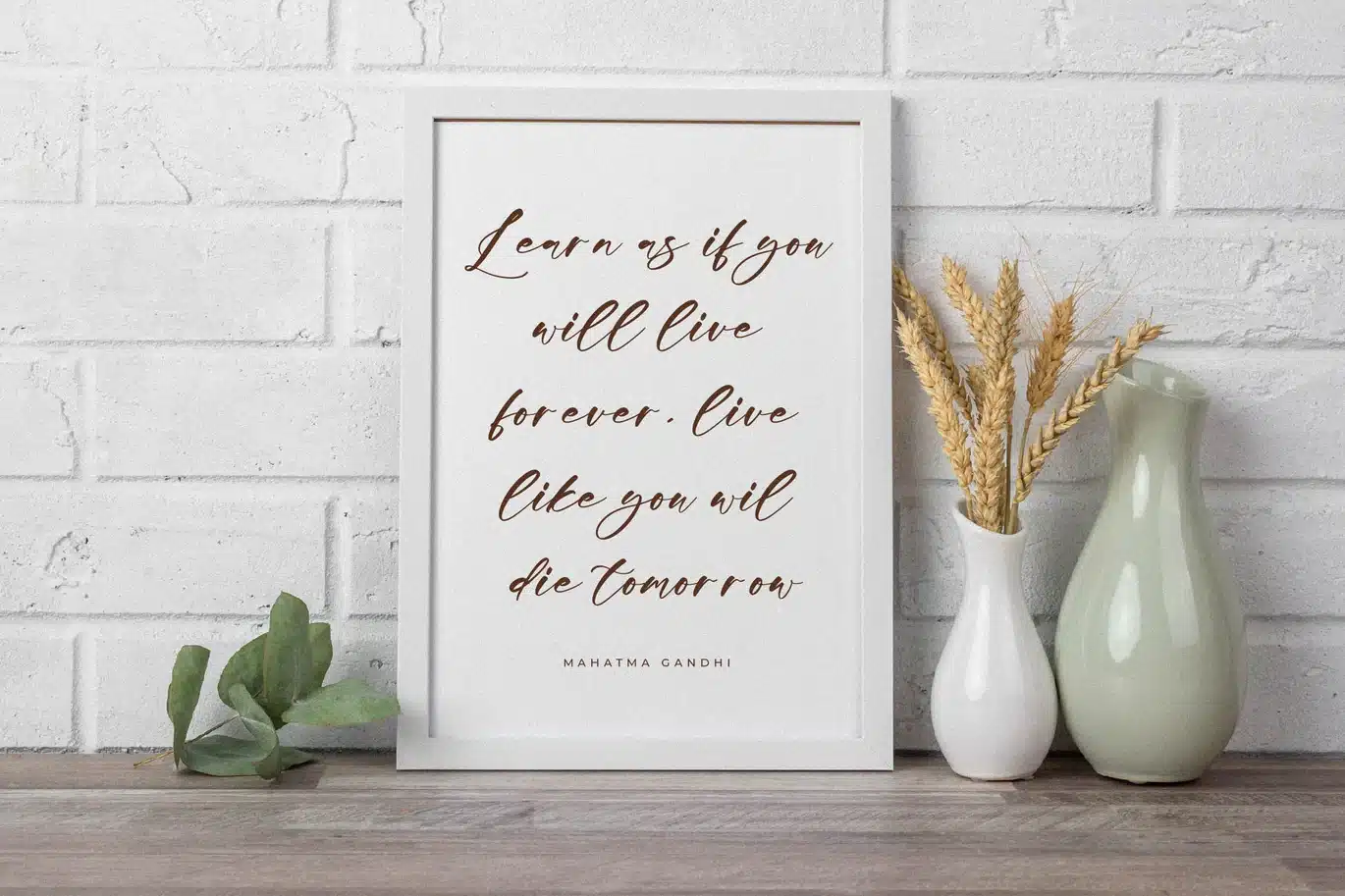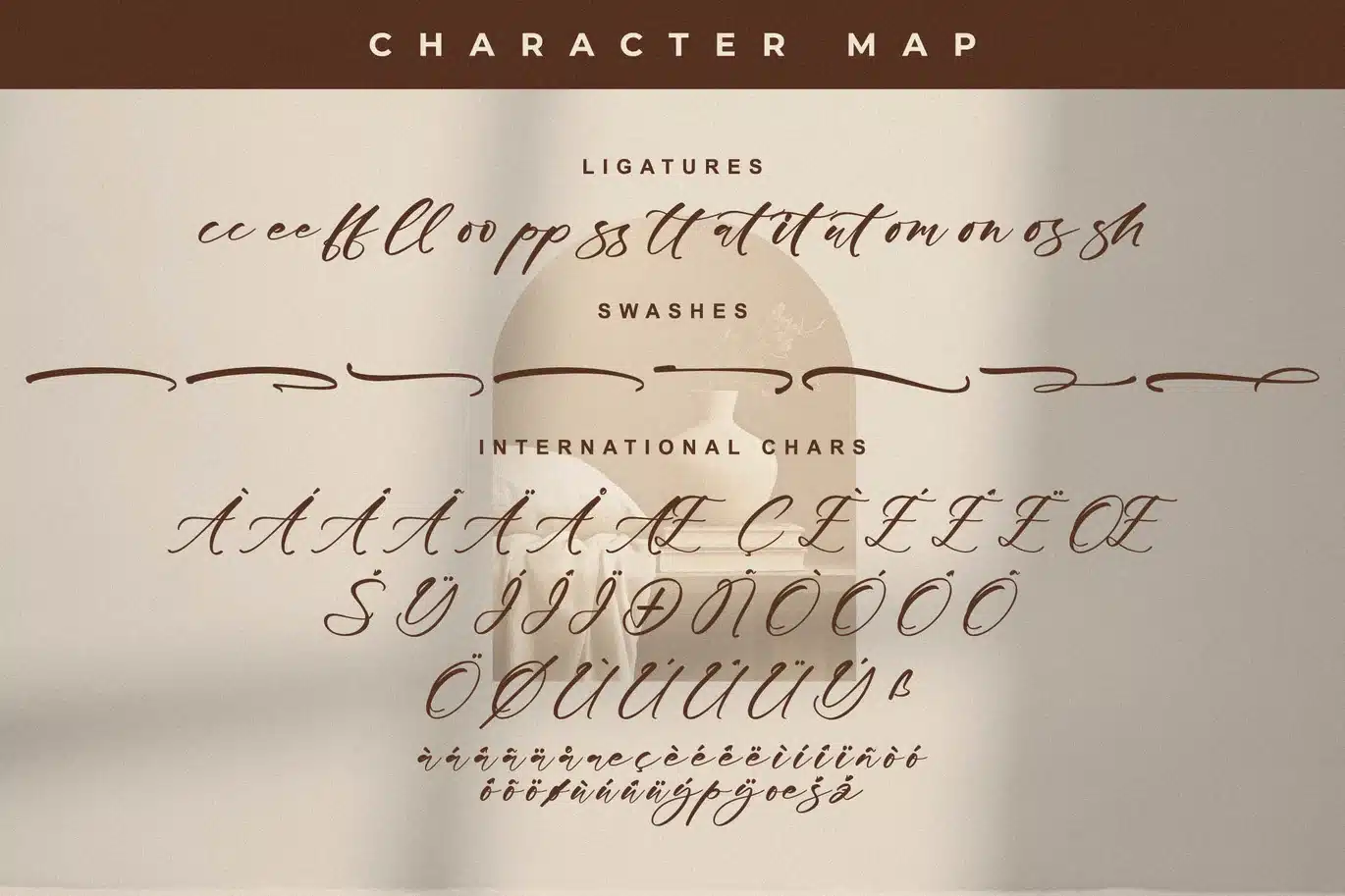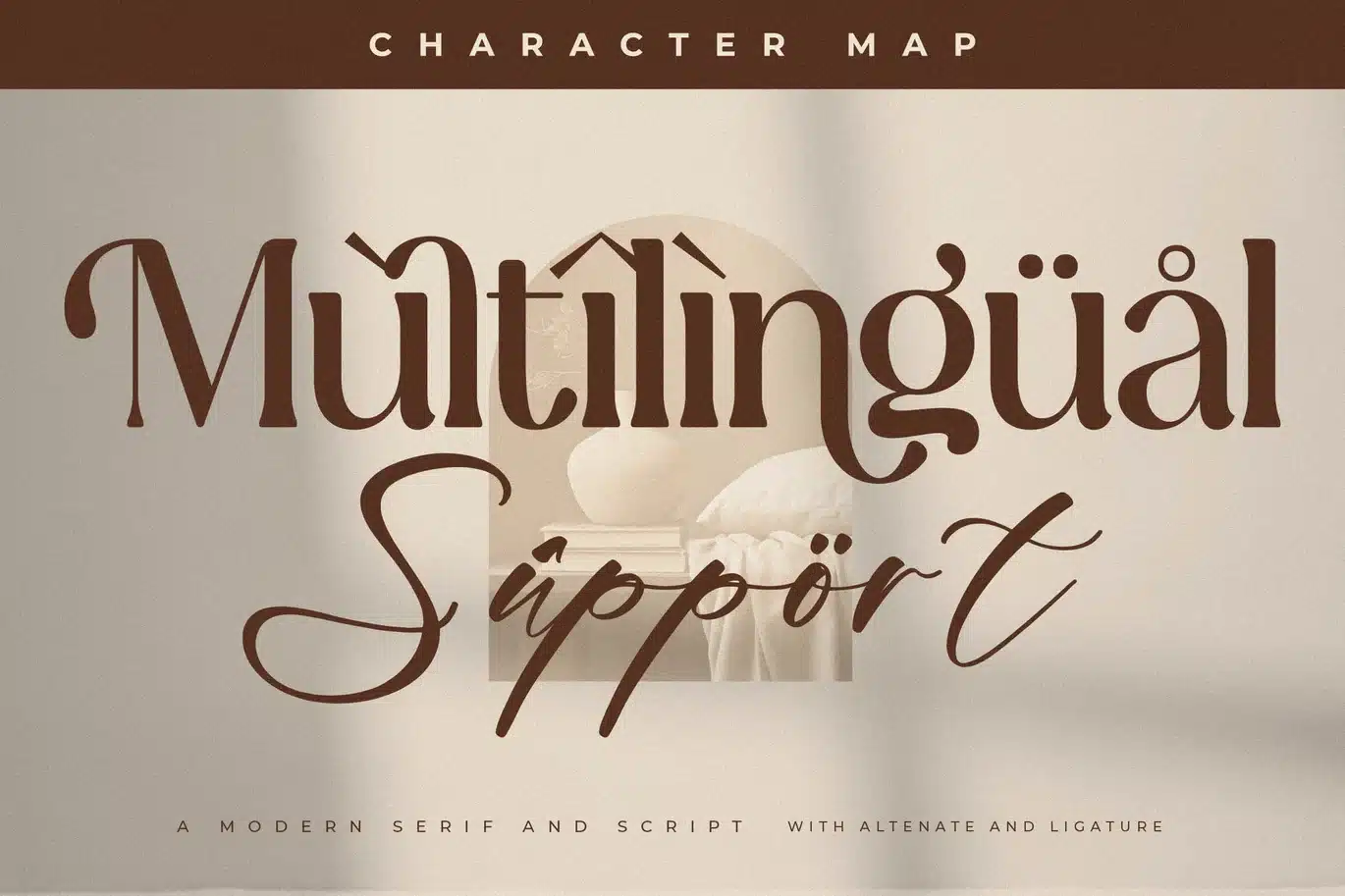
Chapters Ethorea Font Duo
Hi ladies & gentlemen, this is one of our fonts suitable to complement your digital and printed creative products. This font is perfect for posters, social media posts, branding, personal projects, etc.